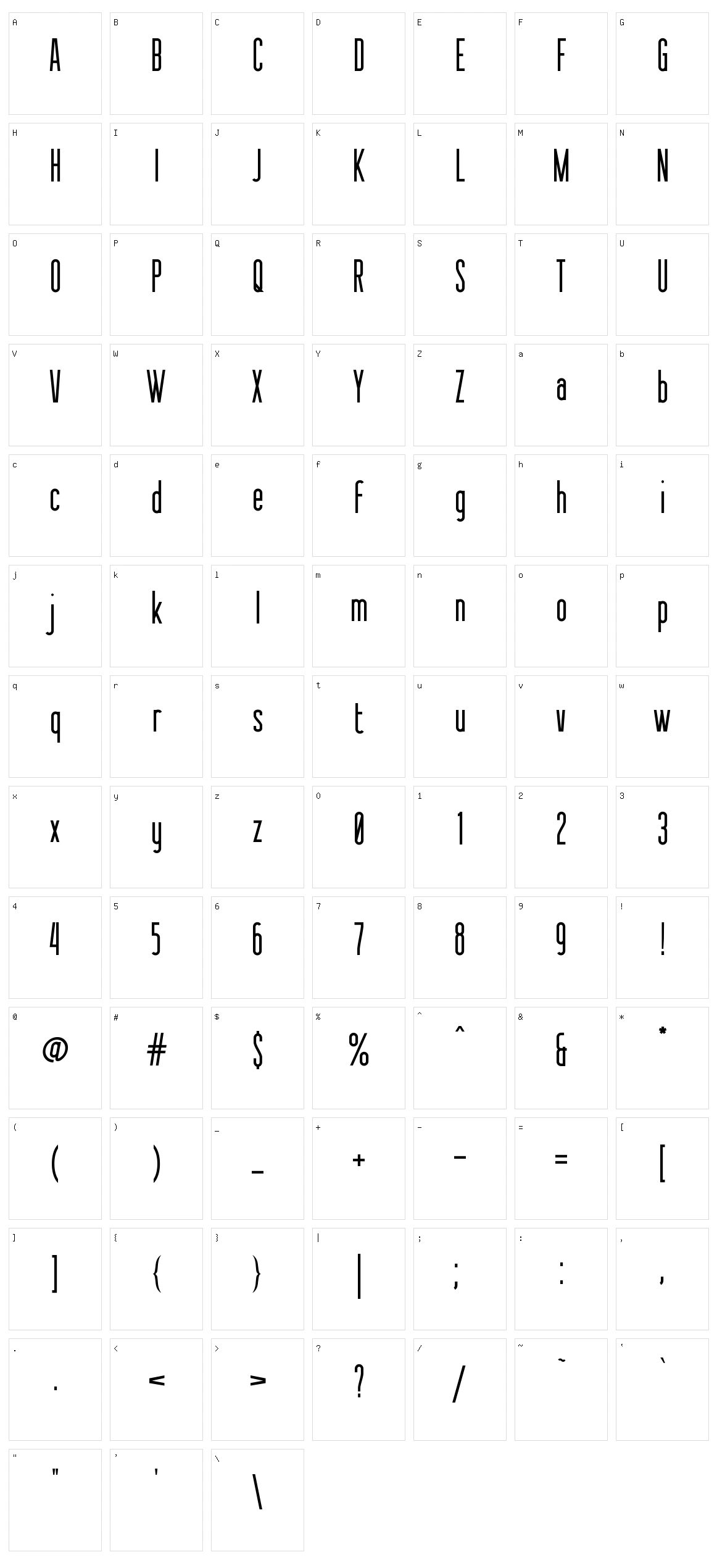
The free font Sessions is carefully designed by Michael Muranaka, showcasing a thoughtful balance of creativity and usability and falls under the Sans serif font style. When you download the ZIP file, it contains only 10.81 KB of font files, making it lightweight and quick to download. Please review the license details below to understand permitted usage and distribution rights. If license information is not available, we recommend using this font for personal projects only or contacting the author directly for commercial usage permissions.